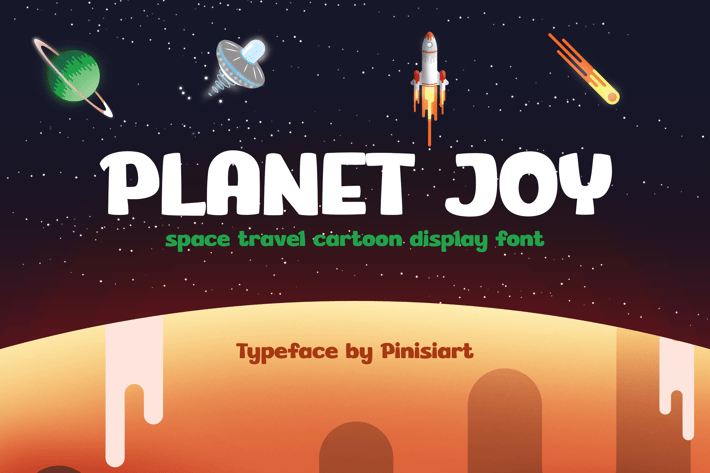
Planet Joy - Cartoon Display Font
Travelling to space is never been this fun. Planet Joy bring the future space travel in a much fun and encouraging to young generation.
Suit perfectly for children's books market, space exploration online games, stationery, school supplies font, poster, movie title, youtube covers, youtube thumbnails, social media page covers, and so on...